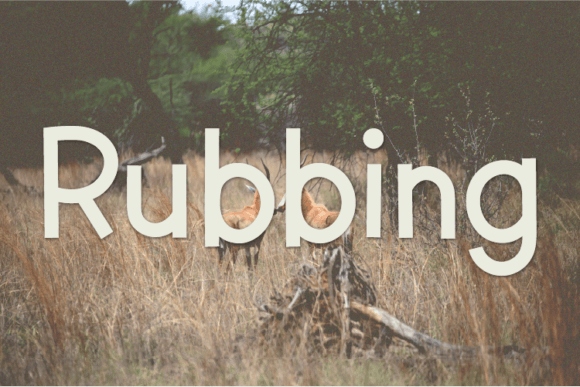
**Indulge in the Exquisite Rubbing Font: Where Elegance Meets Versatility**
Prepare to be mesmerized by Rubbing Font, an extraordinary sans serif masterpiece that will transform your digital creations into captivating works of art. Its meticulously crafted characters exude an aura of sophistication, beckoning you to express your style with unparalleled elegance.
**A Font for Every Occasion**
Whether you're crafting a captivating quote for your Instagram bio, penning heartfelt notes to loved ones, or designing eye-catching T-shirts, Rubbing Font effortlessly adapts to your every need. Its versatility knows no bounds, making it the perfect companion for projects that demand both style and substance.
**The Epitome of Creativity**
Unleash your inner artist as Rubbing Font empowers you to create projects that radiate originality. Its exquisite curves and sharp edges lend an air of sophistication that will elevate your designs to new heights. Prepare to witness your creative visions come to life in a symphony of elegance and charm.
**A Font That Inspires**
Rubbing Font is more than just a collection of characters; it's a spark that ignites inspiration. Its unique and captivating design will awaken your imagination, inviting you to explore new realms of creativity. Whether you're a seasoned designer or just beginning your artistic journey, Rubbing Font will guide you towards masterpieces that will leave an enduring impression.
**Join the Rubbing Revolution**